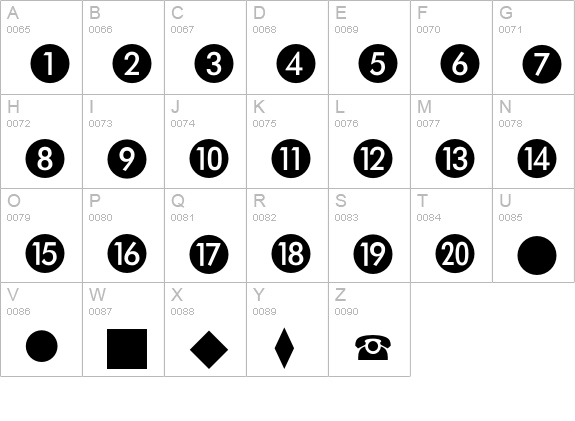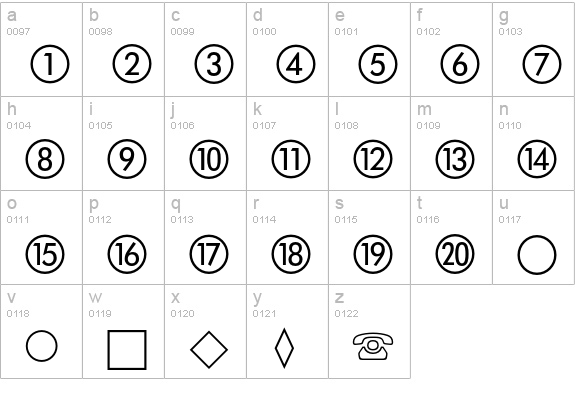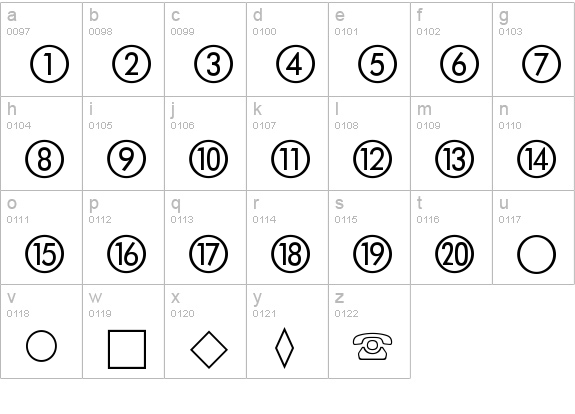
European Pi 1 font is a beautifully crafted typeface that exudes elegance and sophistication. This versatile font features intricate European-inspired characters that are perfect for adding a touch of class to your design projects. Whether you are creating invitations, posters, or branding materials, European Pi 1 font is sure to make a statement. What's even better is that European Pi 1 font is completely free to download at FontsMarket.com. This means you can easily access this stunning font and use it in your projects without any cost. Don't miss out on the opportunity to enhance your designs with the timeless charm of European Pi 1 font. Download it today and elevate your creations to the next level.